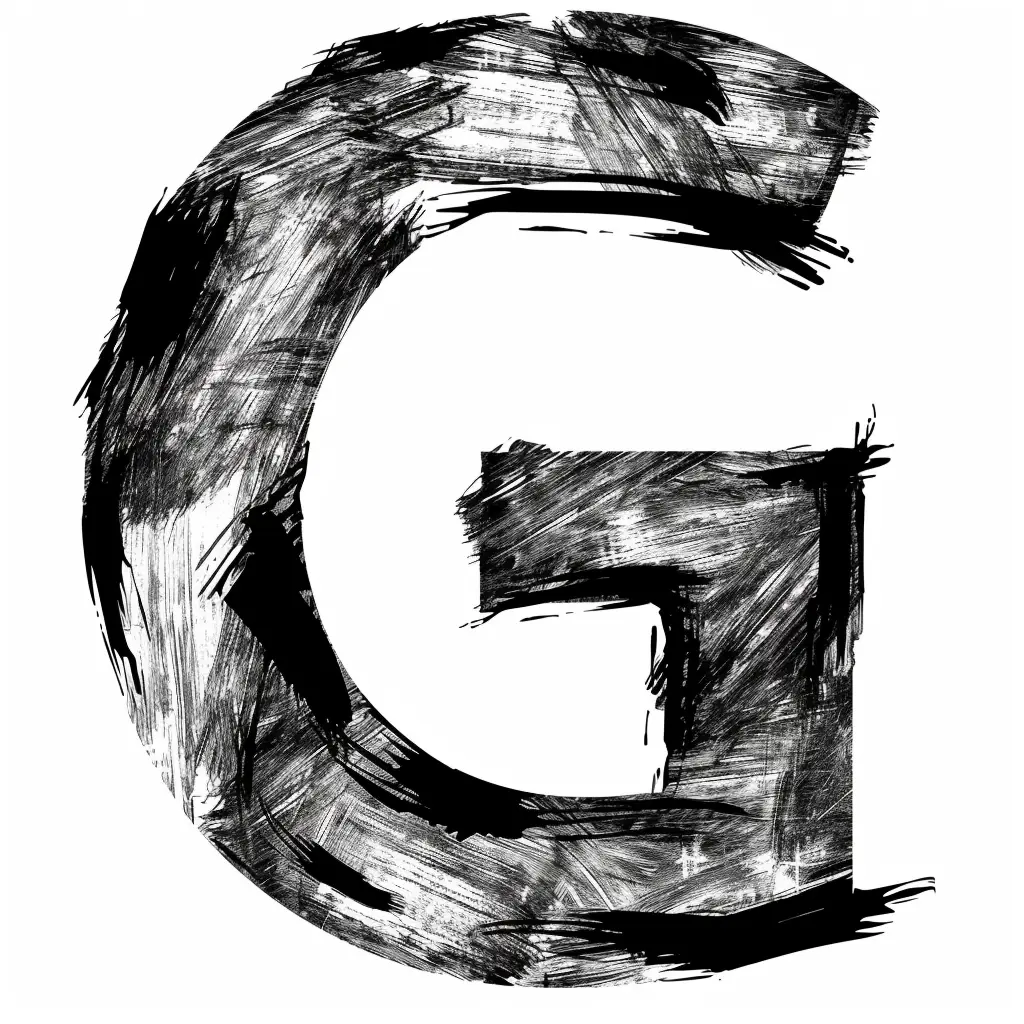
The image features a stylized letter "G" rendered in a rough, textured brushstroke style. The letter is predominantly black with visible white streaks and smudges, creating a grungy, hand-drawn appearance against a plain white background. The bold, uneven lines and layered shading give it a dynamic, artistic feel, emphasizing texture and contrast.